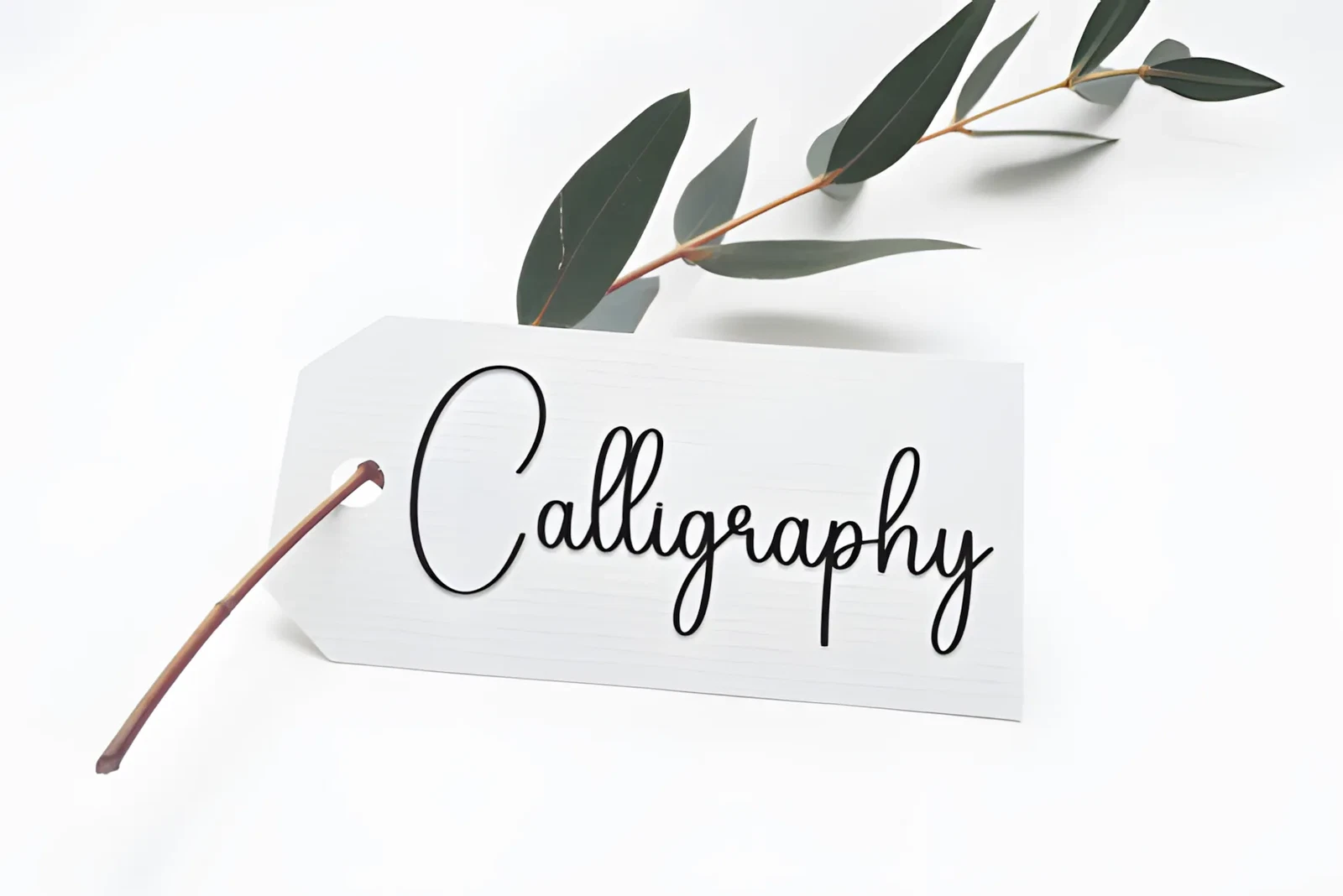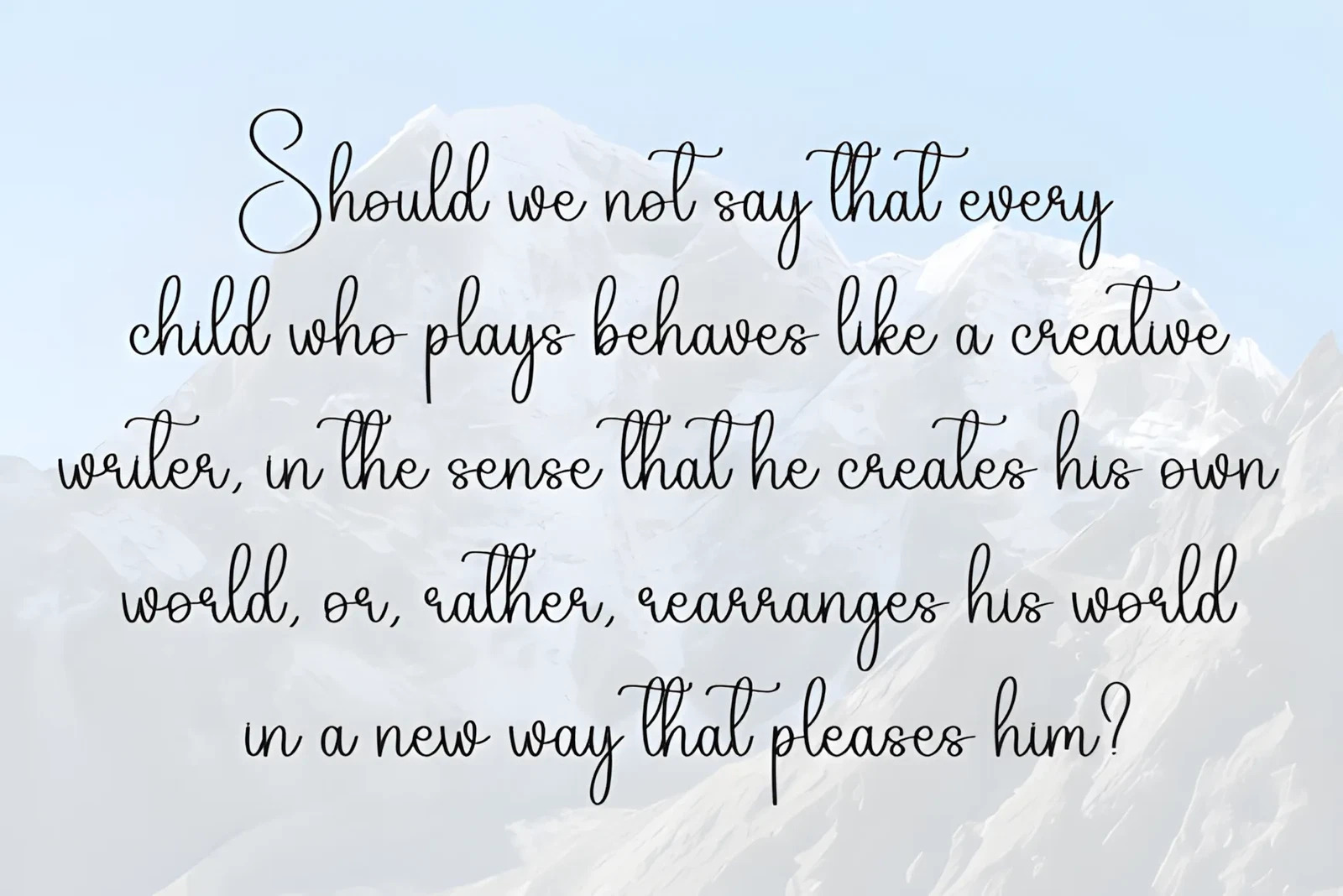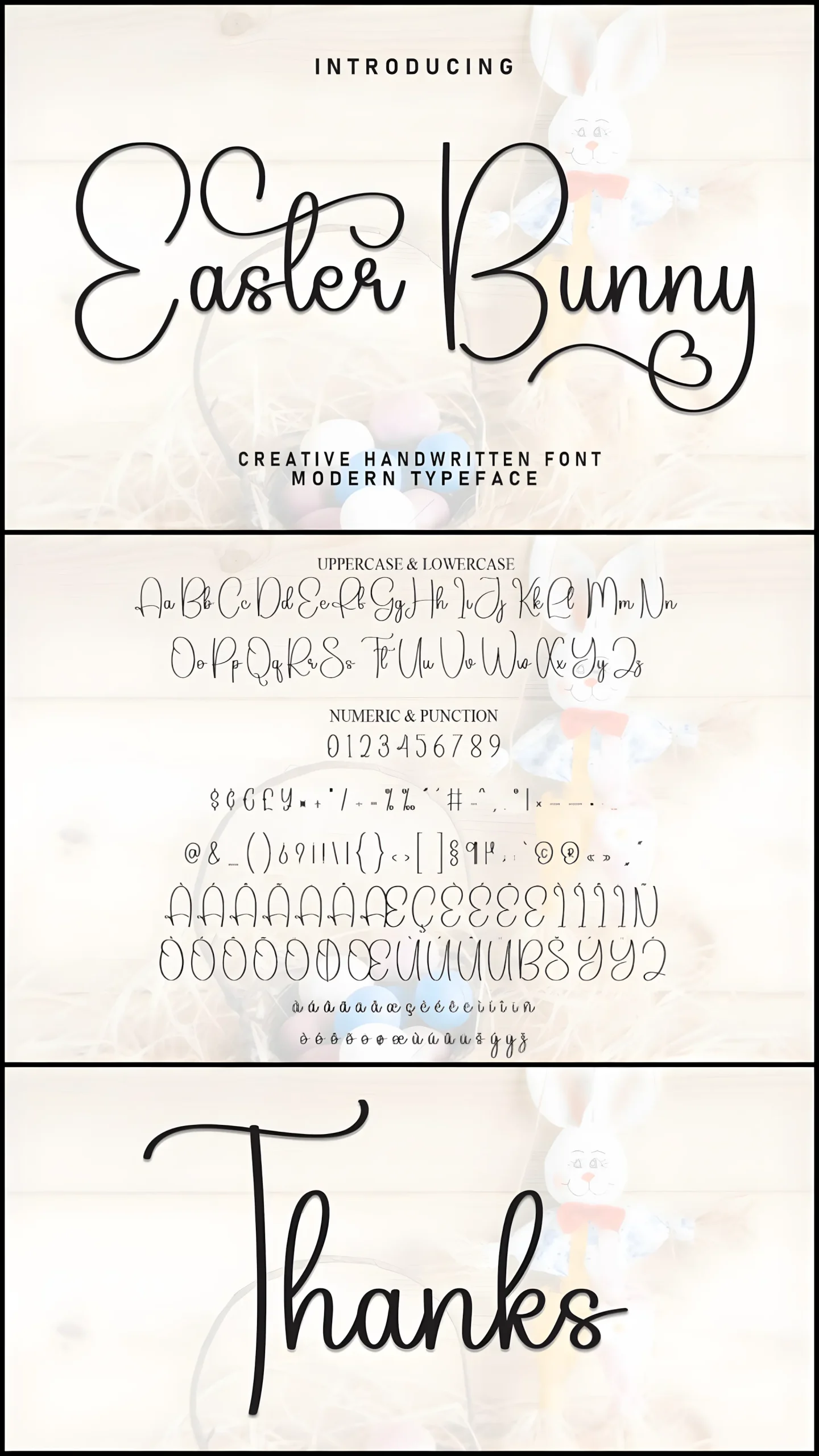
Typography plays a vital role in creating the mood and visual identity of a design project. When the theme is fun, festive, and seasonal — especially around Easter — the right font can instantly bring joy and personality to your work. The Easter Bunny 392 Font is a cheerful decorative display typeface designed to do just that. With whimsical letterforms and a playful aesthetic, this font makes any design feel festive, welcoming, and full of life.
Ideal for invitations, posters, social graphics, and holiday branding, Easter Bunny 392 adds a light-hearted visual tone that captures the spirit of the season.
What Is Easter Bunny 392 Font?
Easter Bunny 392 Font is a decorative display font inspired by themes of springtime, celebration, and lighthearted fun. Its letterforms feature expressive curves, imaginative shapes, and a handwritten feel that evokes the charm of seasonal celebrations.
This typeface is best used in headline text, titles, and short text elements where expressive typography is needed. Because of its decorative nature, it stands out on posters, banners, greeting cards, and digital visuals, instantly communicating a playful and welcoming vibe.
Visual Style and Design Characteristics
What makes Easter Bunny 392 Font visually appealing is its blend of playfulness and clarity. The characters are designed to feel hand-made and joyful, with gentle strokes and organic movement that suggests a festive, springtime atmosphere.
Unlike generic fonts that feel neutral or bland, this decorative typeface carries personality — perfect for holiday and event graphics. Its shapes are rounded yet expressive, creating a balance between readability and decorative charm.
Whether paired with pastel color palettes or illustrated elements like eggs, bunnies, flowers, and ribbons, the font enhances the thematic look of seasonal designs.
Best Uses for Easter Bunny 392 Font
Holiday Invitations and Greeting Cards
When designing Easter invitations or seasonal greeting cards, typography plays a key role in setting the tone. Easter Bunny 392 Font instantly makes invitations feel warm, joyful, and personalized, whether for family gatherings, community events, or holiday parties.
Combine this font with playful pastel graphics and seasonal icons to create memorable keepsakes that delight recipients.
Event Posters and Promotional Materials
In event promotion, typography needs to be both eye-catching and expressive. Easter Bunny 392 Font performs exceptionally well on:
- Event posters
- Promotional flyers
- Banners
- Print advertising materials
Its cheerful shapes ensure that headlines draw attention and communicate a sense of celebration, making it ideal for Easter egg hunts, seasonal festivals, church events, or spring markets.
Social Media Graphics and Digital Assets
In the world of digital design, engaging typography helps content stand out on crowded social feeds. Easter Bunny 392 Font works beautifully on:
- Instagram, Facebook, and TikTok graphics
- Digital invitations
- Featured website banners
- Email headers
This font adds personality and visual appeal to digital messages, encouraging greater audience engagement with seasonal content.
Packaging and Merchandise
Easter Bunny 392 Font is not limited to traditional holiday graphics — it also excels in product design and packaging. From themed gift boxes to seasonal product labels, the font adds a festive look that enhances brand storytelling.
It pairs well with hand-drawn icons, spring illustrations, and custom graphics that align with seasonal campaigns.
Benefits of Using Easter Bunny 392 Font
- Playful decorative style — conveys joy and festivity
- Expressive letterforms — ideal for bold headlines and titles
- Versatile for print and digital design
- Enhances seasonal branding and holiday messaging
- Works well with illustrated elements and festive icons
Because of its cheerful aesthetic, Easter Bunny 392 Font brings personality and thematic clarity to designs that celebrate Easter, spring, or seasonal events.
Easter Bunny 392 Font is a joyful decorative typeface that brings a playful and festive spirit to creative projects. Its expressive letterforms work beautifully in holiday invitations, promotional materials, social media graphics, packaging, and seasonal branding.
For designers seeking a decorative font that enhances celebration, joy, and visual character, Easter Bunny 392 Font is a delightful and versatile choice.